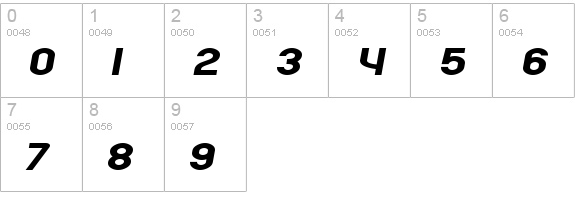
SF Atarian System Extended Bold Italic Font Details
SF Atarian System Extended Bold Italic is a strong, high-contrast, extended-width, italic variant in the SF typeface family \xE2\x80\x94 well suited to headlines, attention-grabbing titles, and strong calls-to-action.
SF Atarian System Extended Bold Italic font is a visually stunning typeface that combines boldness and elegance with a futuristic twist. This font is perfect for those seeking a modern and edgy look for their designs. With its distinctive italicized style, SF Atarian System Extended Bold Italic adds a touch of sophistication to any project. The clean, sharp lines of this font give it a sleek and professional appearance, making it ideal for a wide range of applications such as logos, headlines, posters, and branding materials. Its extended width allows for better readability and a strong visual impact. One of the best things about SF Atarian System Extended Bold Italic font is that it is free. You heard that right! This amazing font is freely available to download at FontsMarket.com. Now you can create stunning designs without having to worry about breaking the bank. Whether you're a professional designer or a hobbyist, SF Atarian System Extended Bold Italic font offers endless creative possibilities. Its versatility allows it to be used in various design styles, from futuristic and sci-fi themes to contemporary and minimalistic designs. So why wait? Head over to FontsMarket.com and get your hands on SF Atarian System Extended Bold Italic font today. Elevate your designs with this bold and sophisticated typeface that is sure to make a lasting impression.